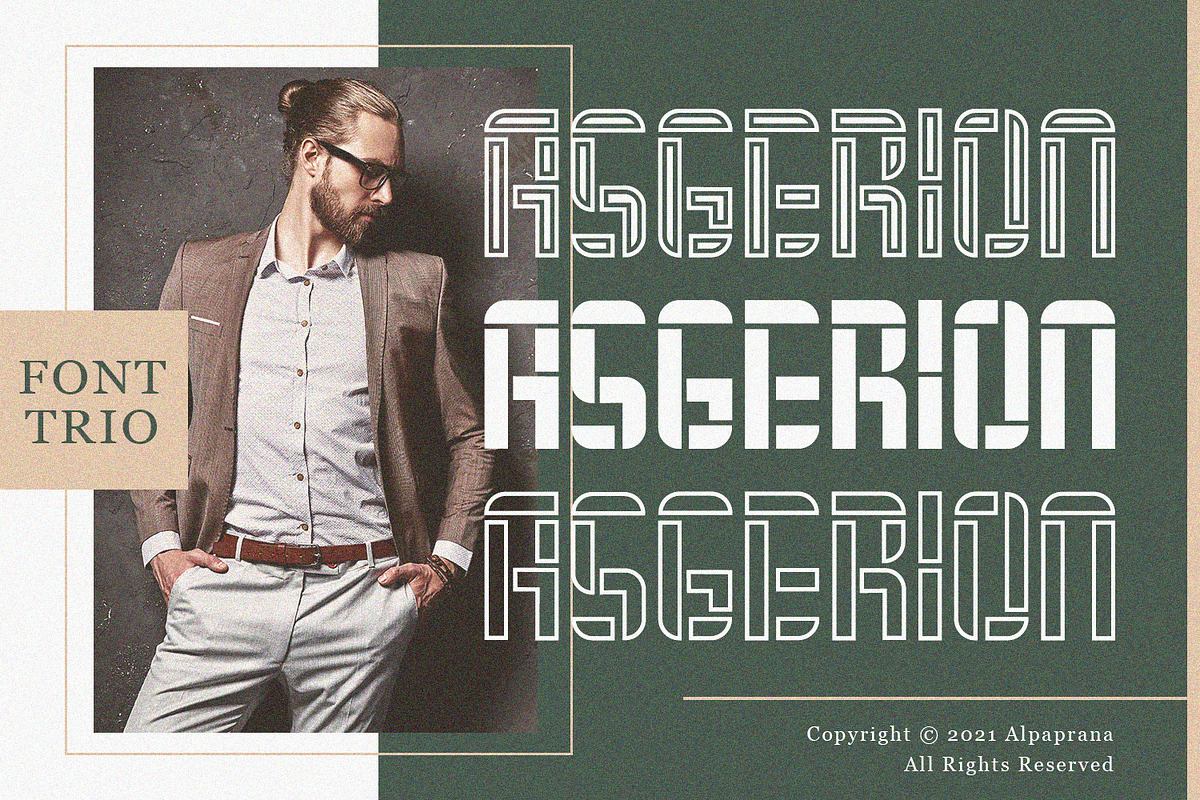
Asgerion - Display Font Trio Free Download is a bold, stylish, and versatile typeface bundle crafted for designers who crave flexibility in their creative work. With three distinct styles in one package, Asgerion gives you the power to create standout visuals across various mediums — from futuristic posters to elegant branding, edgy album covers to eye-catching websites.
This font trio combines sharp edges, strong presence, and modern aesthetics, making it ideal for titles, logos, and impactful headlines. Whether you're designing for tech, fashion, or gaming, Asgerion - Display Font Trio Free Download provides a professional look that captures attention immediately.